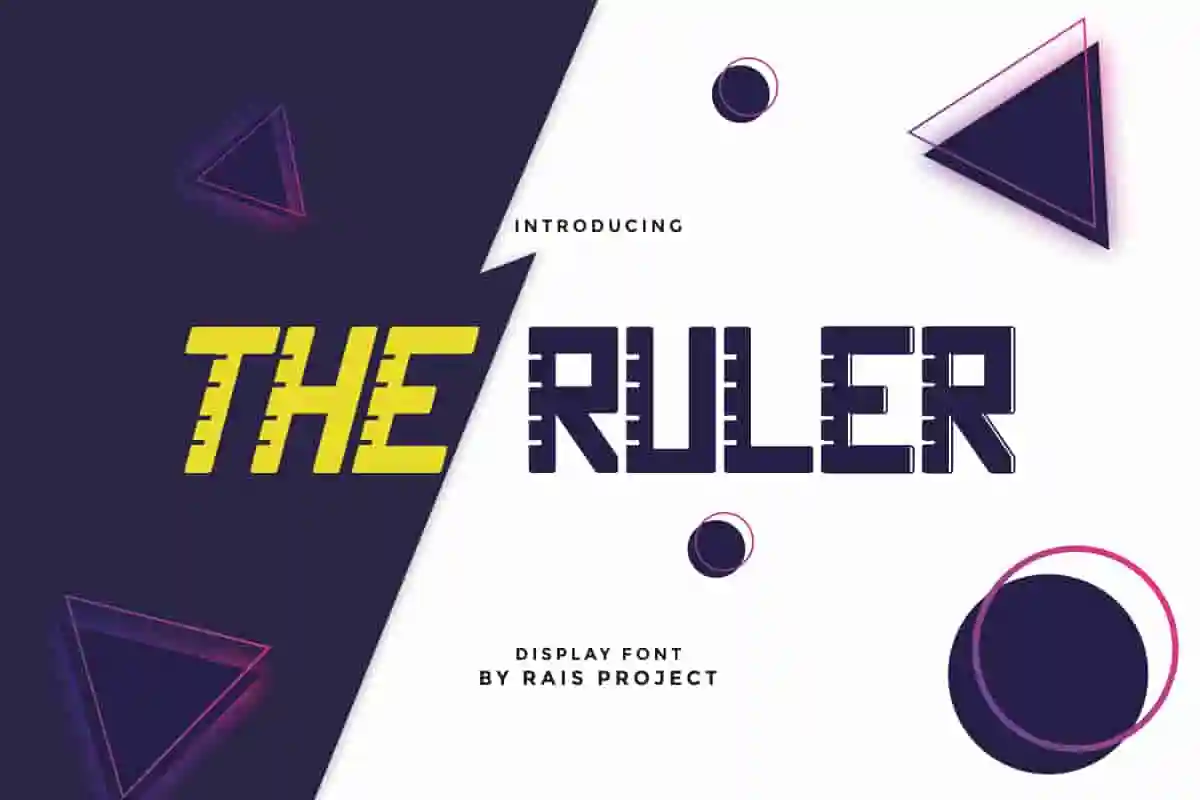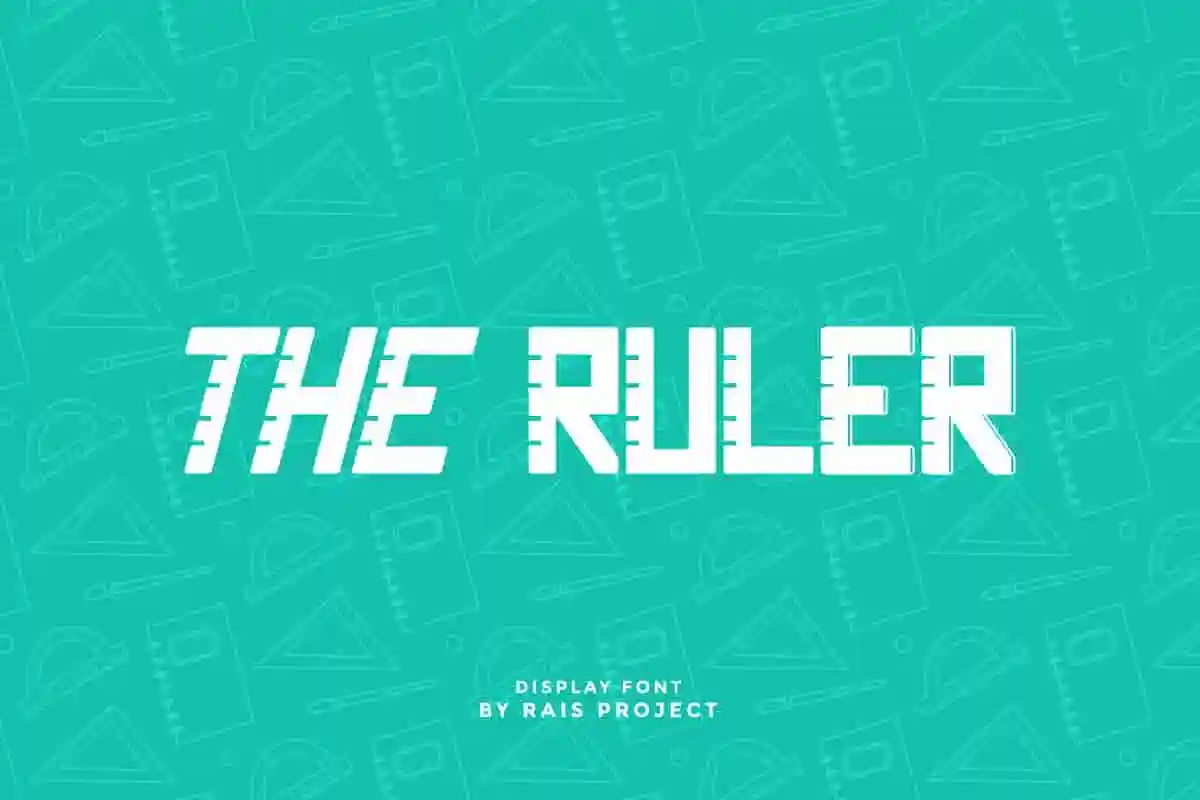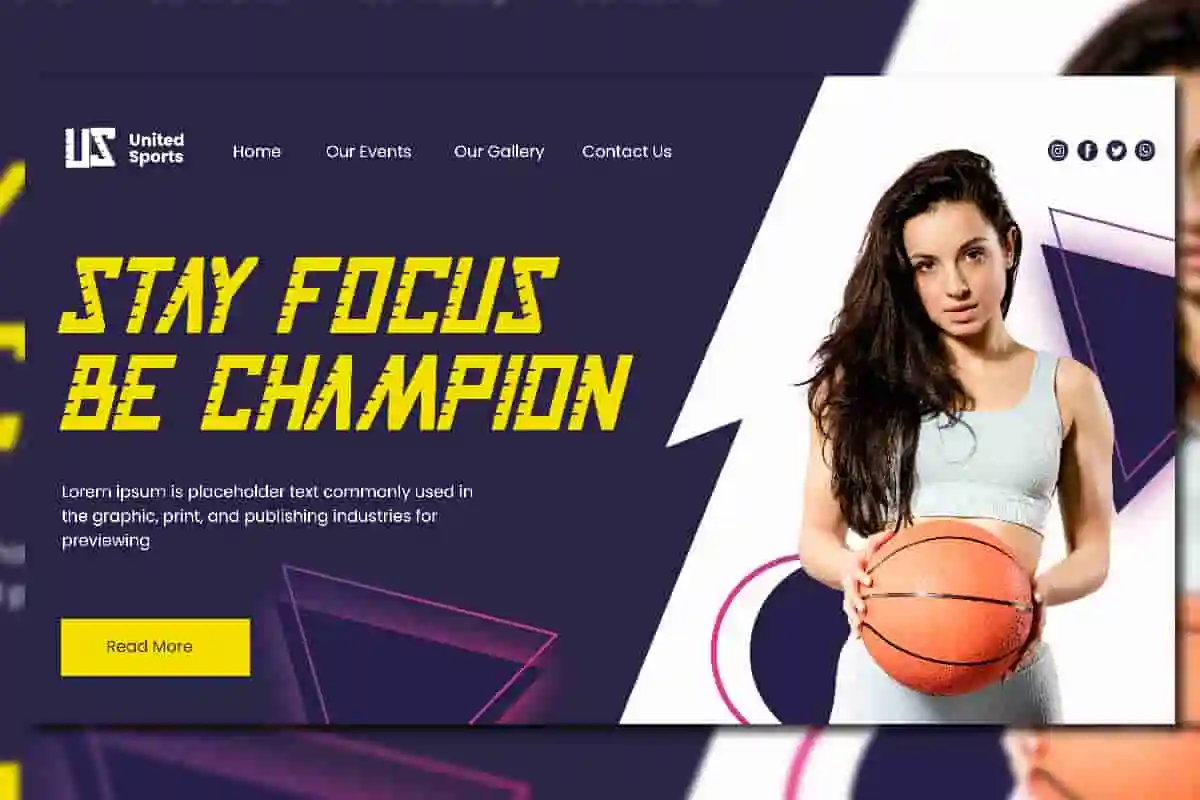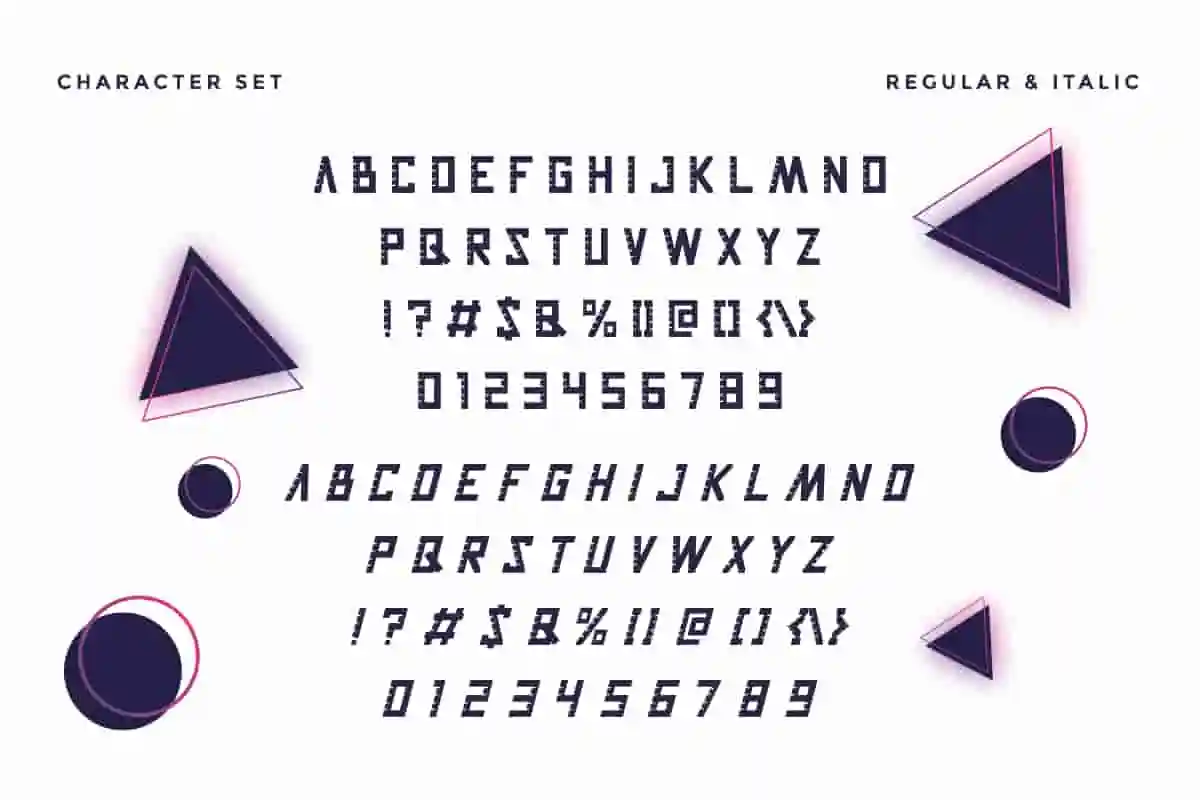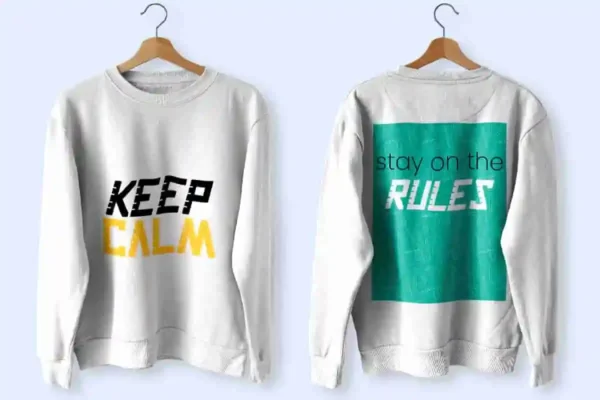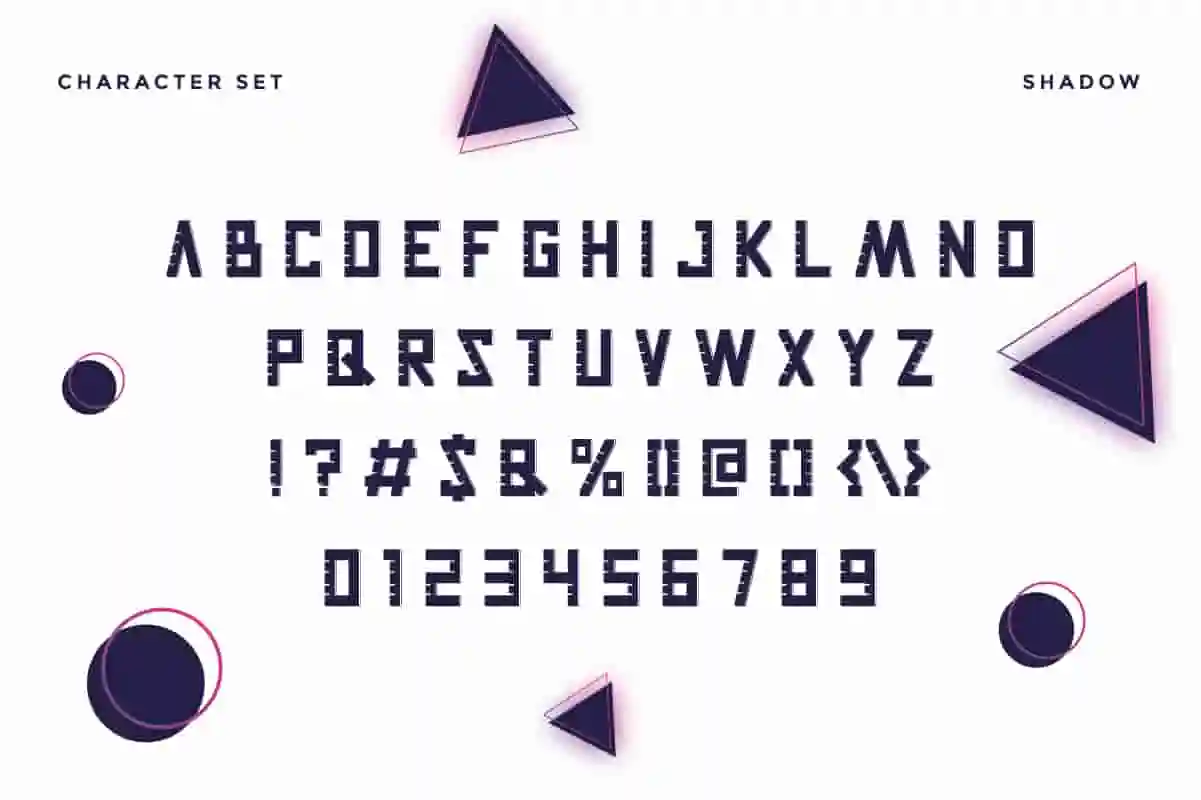
The Ruler Sans Serif Font
The Ruler Font is a display decorative sans serif font family, designed by Rais Project. The font has three different styles that great for Sport, Cosmetic, Beauty, Technology, Game, Magazine, Music, etc
The Ruler is a decorative Sans Serif font family, inspired from traditional ruler designed by RaisProject. It is our new font on the market. It has unique, modern and stylish style. You can see the demo font below. You can also input any word you want so you can see what it will look like :
The Ruler Font remotely made by RaisProject team in Indonesia.The industries for this font Startup, Automotive, Apps, Cosmetic, Beauty, Technology, Game, Magazine, Music, Sport etc The Ruler Sans Serif Font includes full set of gorgeous uppercase and lowercase letters ,numerals and Multi languages characters. In total, The Ruler has three different styles : Reguler, Italic, and Shadow On the package You will get: